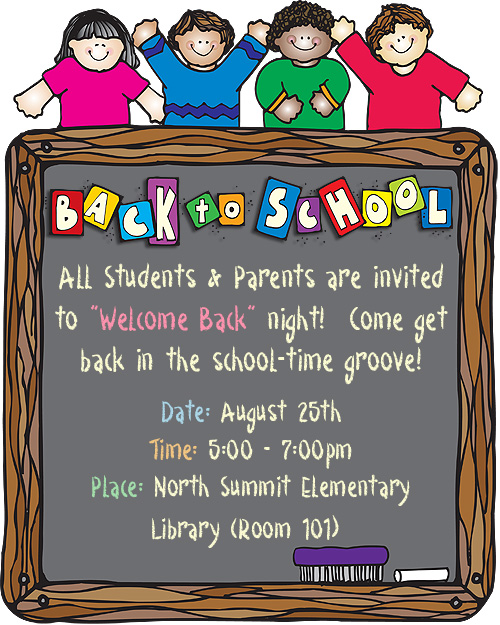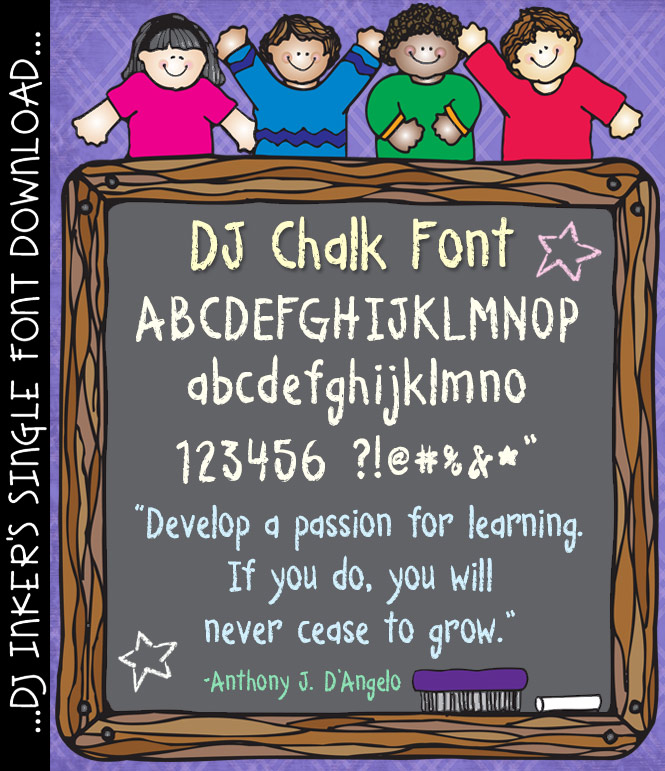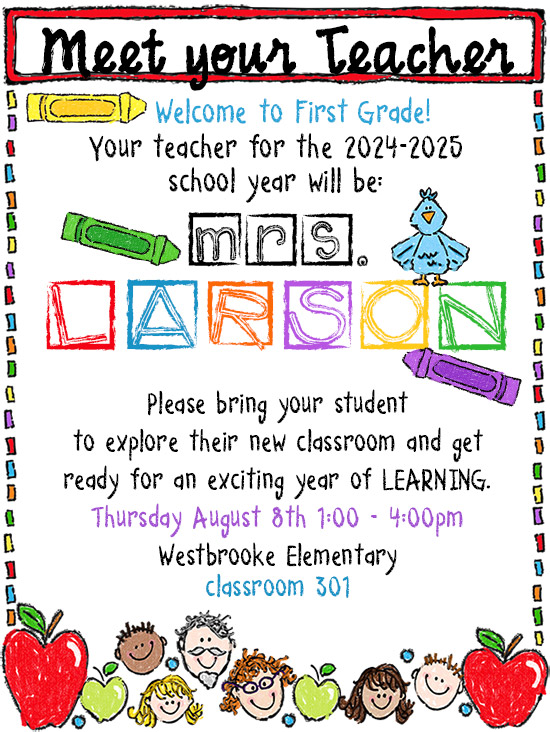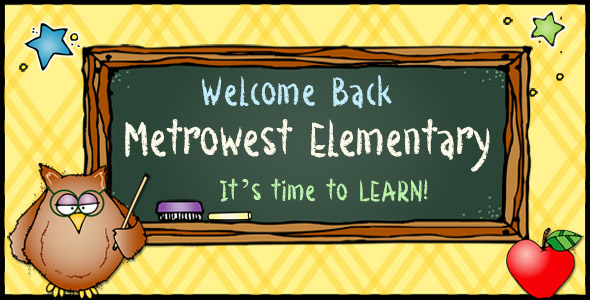
Our DJ Chalk font is perfect for teachers, school and chalking up smiles - DJ Inkers
DJ Chalk Font Download
Back to school night clip art border made with DJ Chalk font -DJ Inkers
Our whimsical DJ Chalk font will be the perfect way to add a classic schoolhouse style to your projects. Yep... you can almost smell the chalk dust! This font does well in just about any size or color, but it's especially fun in white over a dark background.